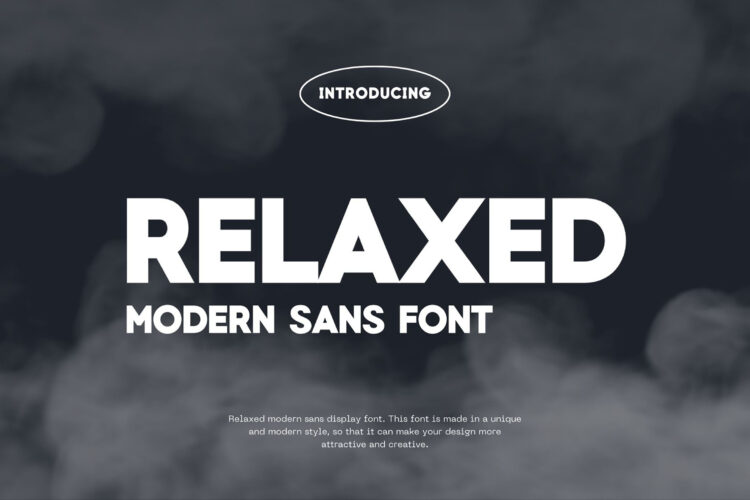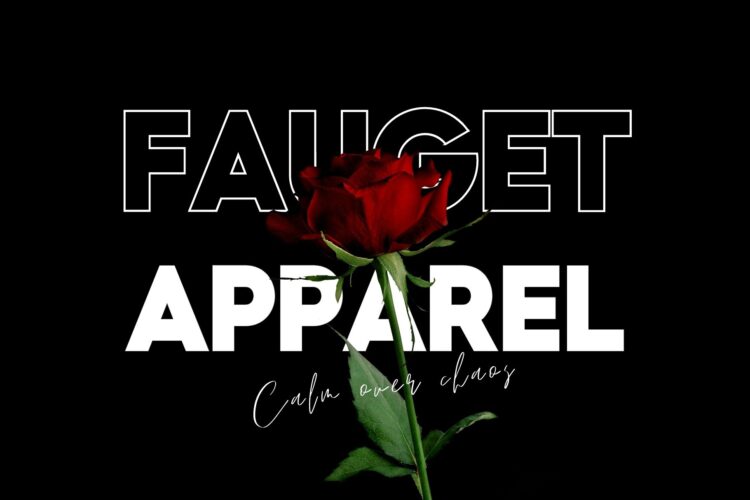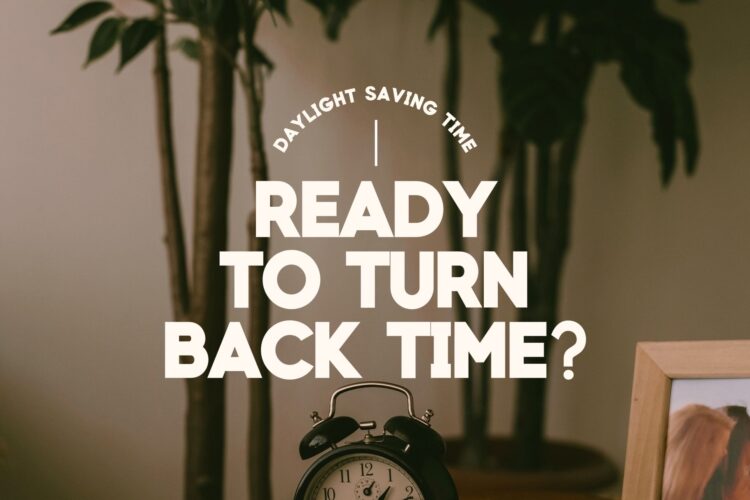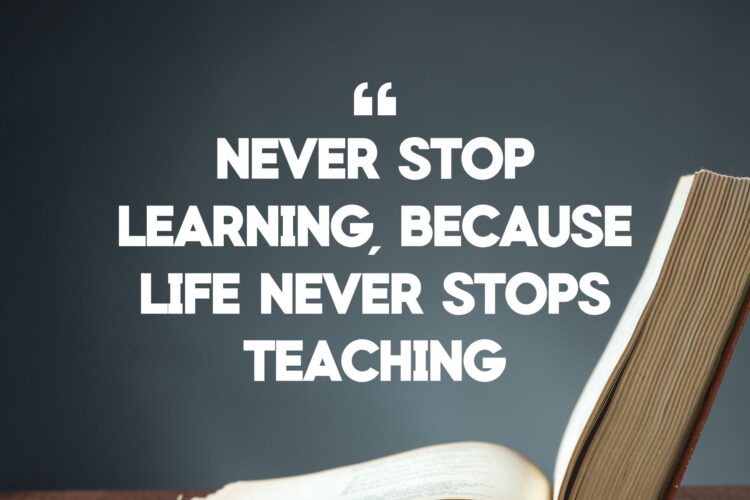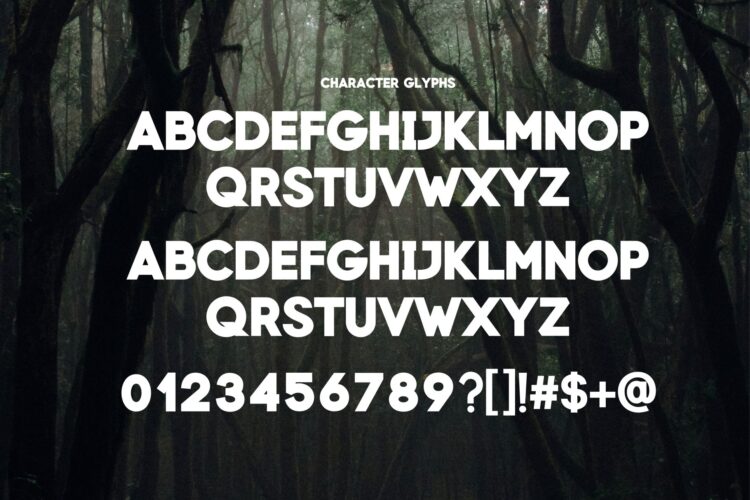
Introducing our new Relaxed, modern sans serif font with elegant style this is perfect for branding, logos, invitation, magazines, product packaging and more.
Relaxed – Modern Sans Font